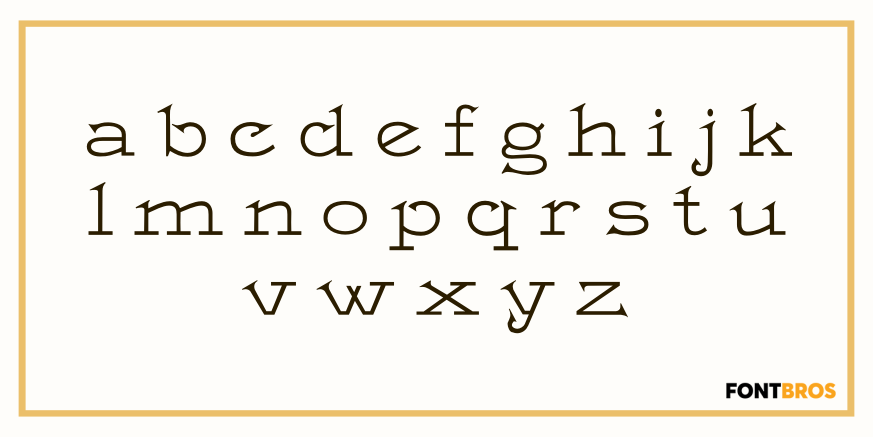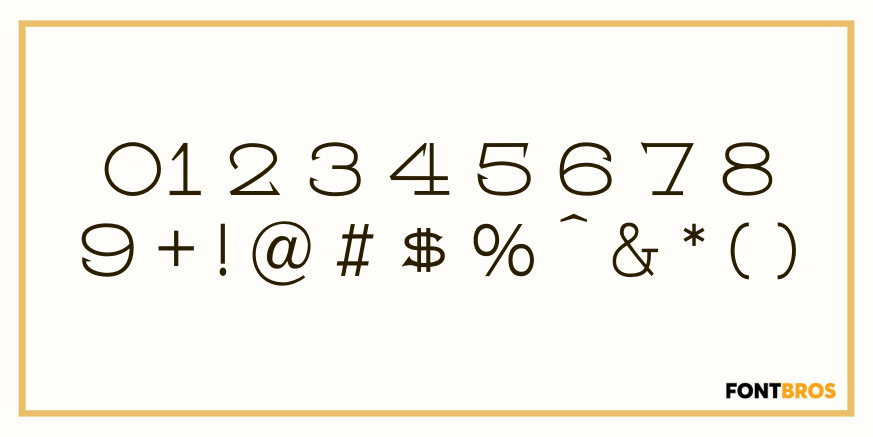
Hansard
This is a neat lightface font from the 1880s, issued by MacKellar, Smiths & Jordan of Philadelphia.
Just a hint of Victorian design on a few letters. All in all a clean, easy to use font.
Hansard includes 201 glyphs.
Hansard by Solotype